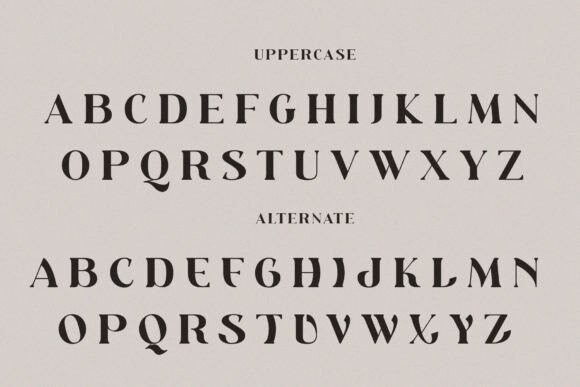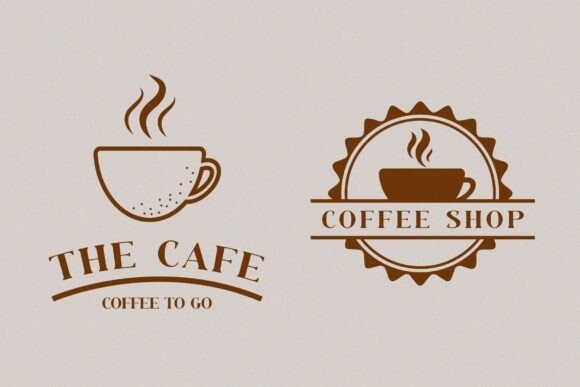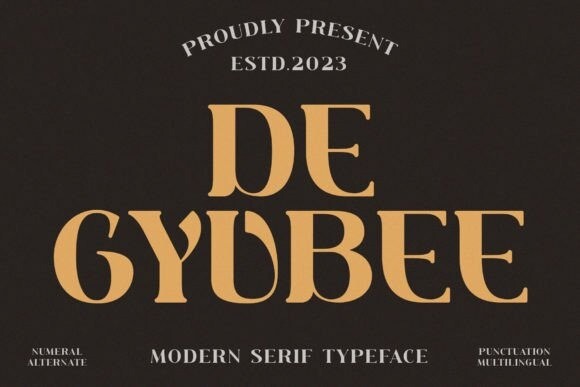
De Gyubee Font
De Gyubee Font: An elegant and modern serif typeface. With its modern and minimalist appearance, DE GYUBEE brings a luxurious and clean style to your projects such as websites, modern logos, branding identities, social media quotes, wedding stationery, and various other needs!
DE GYUBEE displays capital letters A to Z and also features alternative letters A to Z which are unique and classy of course because they are made with great care so that they become beautiful fonts and can be adapted to various large projects as desired.